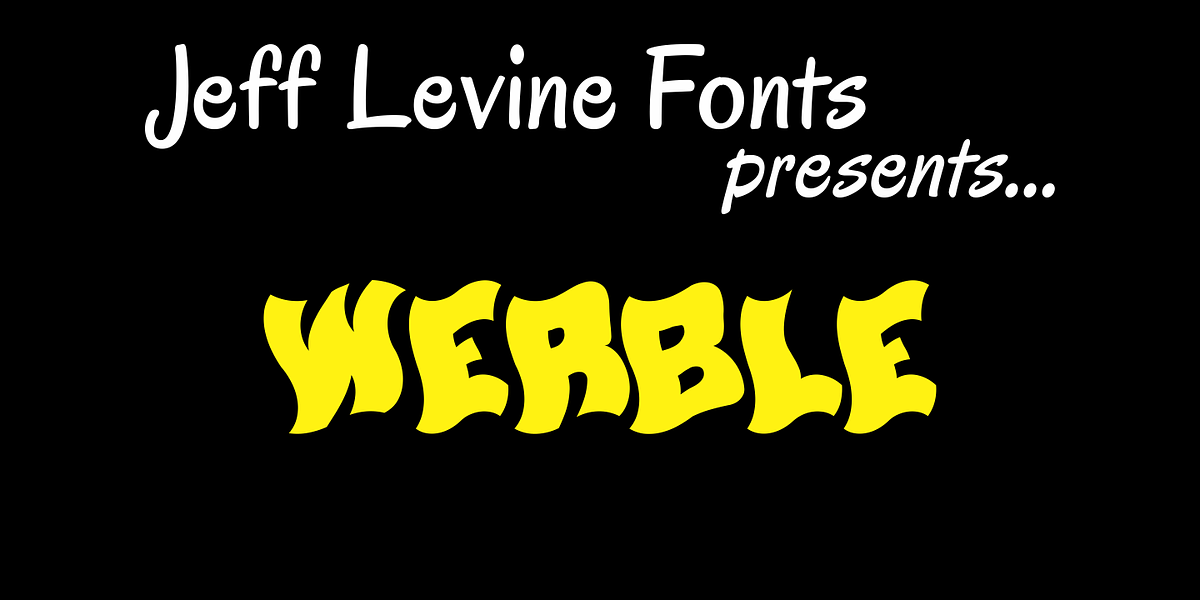
Werble JNL
Werble JNL is a wiggly, wavy, novelty font that can be used for anything that needs to show movement. It also lends itself well to spooky themes such as Halloween or horror films.